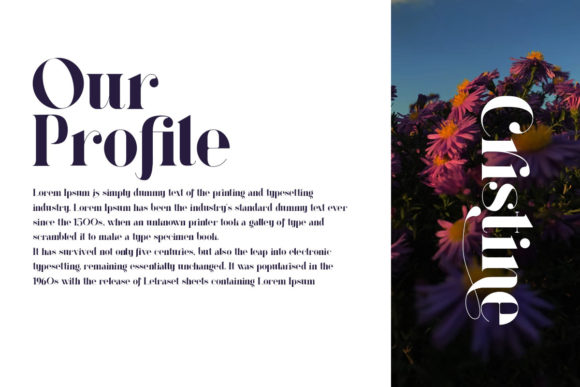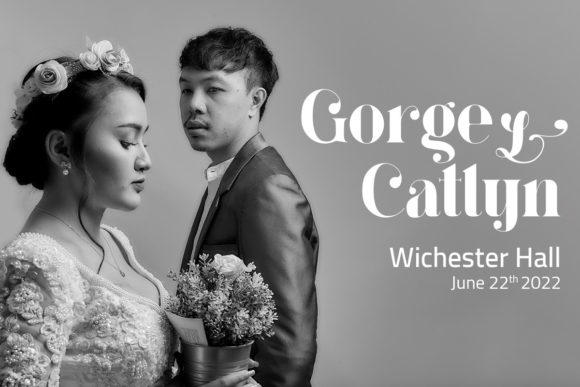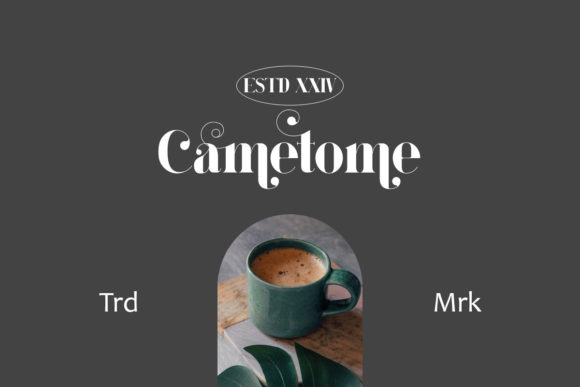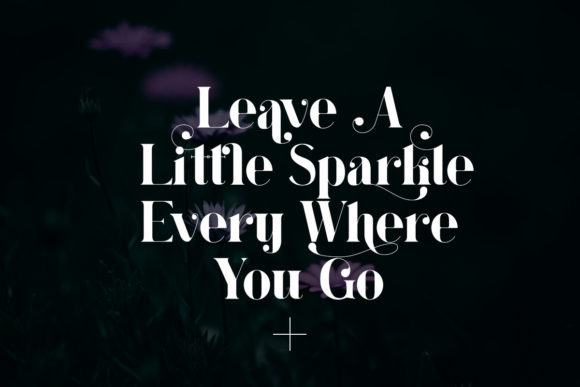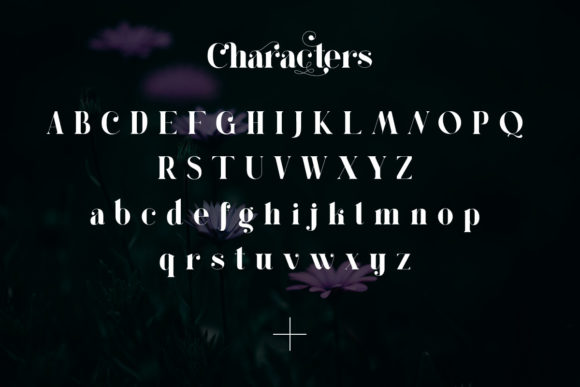
Introduction to Aesther Font
As designers, we’ve all been there – staring at a blank canvas, waiting for that perfect font to bring our creative vision to life. It’s the moment of truth, when every element comes together to make our project truly stand out. For many of us, that moment is made possible by the perfect font. And that’s where the Aesther Font comes in – a sophisticated serif font that’s sure to elevate your design game.
With its unique letterform and beautiful ligatures, the Aesther Font is the ultimate design resource for any creative project. Whether you’re looking to create a stunning headline or a catchy tagline, this font has got you covered. And the best part? It’s PUA encoded, making it easy to access all of its glyphs and swashes with just a few clicks.
The Power of Aesther Font
As a free download, the Aesther Font is a high-quality design resource that’s sure to become a staple in your design arsenal. Its transparent background and high-quality design make it perfect for any project, from print to digital. And with its wide range of glyphs and swashes, you’ll never run out of creative possibilities.
Key Features of Aesther Font
- High-quality, professional font designed for creative projects, offering a unique and elegant touch.
- Comes with transparent background, allowing for seamless integration with any design or background.
- Designed with a focus on legibility and readability, making it perfect for both digital and print projects.
- Unique characteristics include a distinctive flair and subtle texture, adding depth and visual interest to any design.
Honest Review: Aesther Font
I recently had the chance to experiment with the Aesther Font, and I must say it’s a lovely addition to any design project. The clean lines and elegant curves make it perfect for creating a sophisticated look.
- High-quality typography that renders smoothly in both print and digital formats.
- Transparency options make it easy to customize and blend with different backgrounds.
- Perfect for creative projects, such as graphic design, branding, and typography-based artwork.
- ⚠️ Limited language support, which might be a concern for projects that require multilingual content.
Overall, I’m impressed with the Aesther Font’s potential and versatility. With some careful planning, it can be a valuable asset for your next creative project. Give it a try and see how it can elevate your design!
Aesther Font is ideal for various design projects, including brochures, flyers, business cards, and social media graphics. Its transparent background and high-quality design make it perfect for creating visually appealing and engaging content.